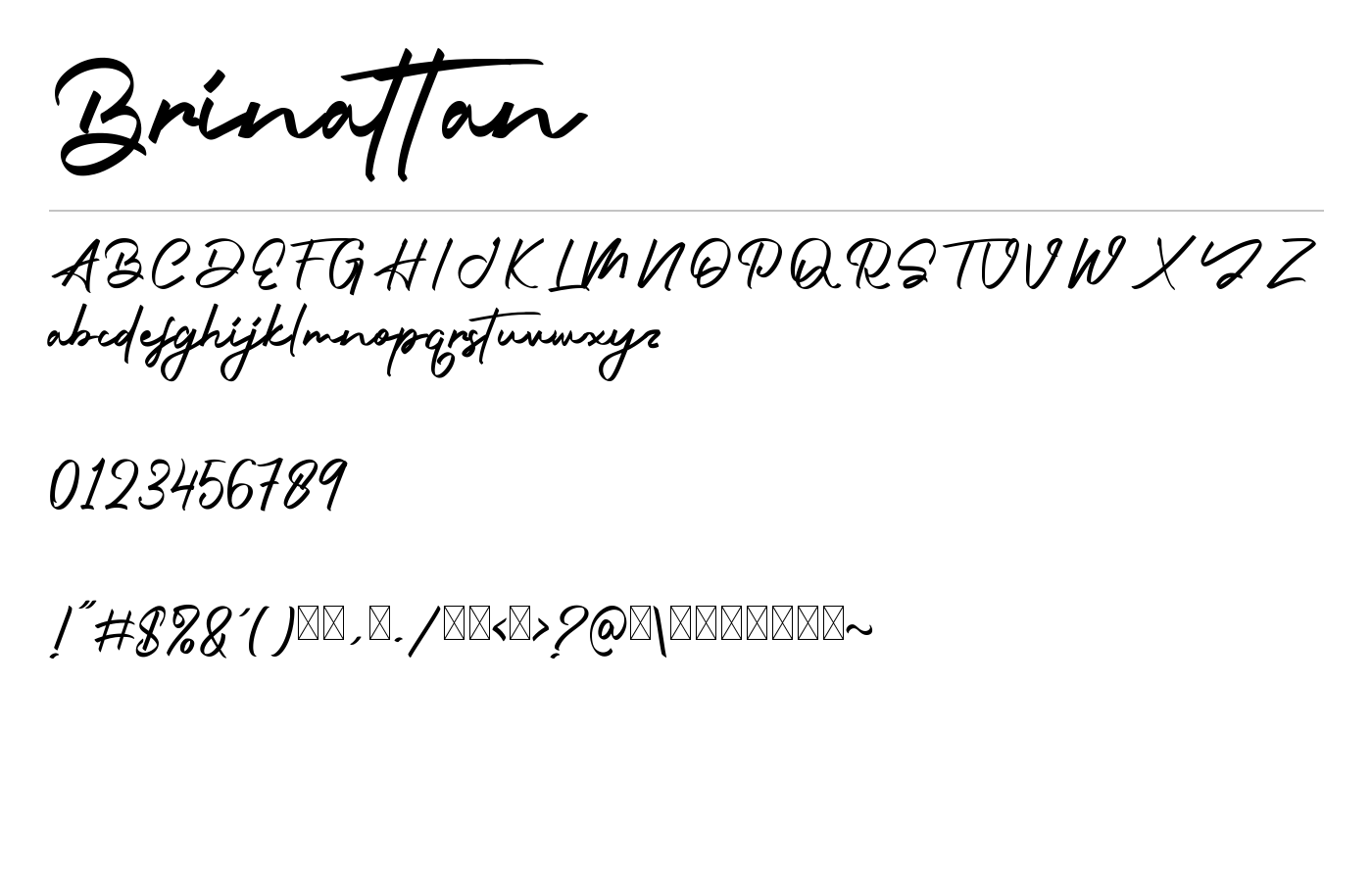
Brinattan is a stylish script font with a handwritten feel, characterized by its fluid, casual strokes and moderate contrast, giving it a lively yet elegant appearance. It works beautifully for personal branding, invitations, and creative projects where a warm, approachable touch is desired. This font shines in headlines and logos, adding charm and personality without sacrificing readability.
Brinattan Font
About Brinattan Font
| Font family | Brinattan Font |
| Designer | RantauType |